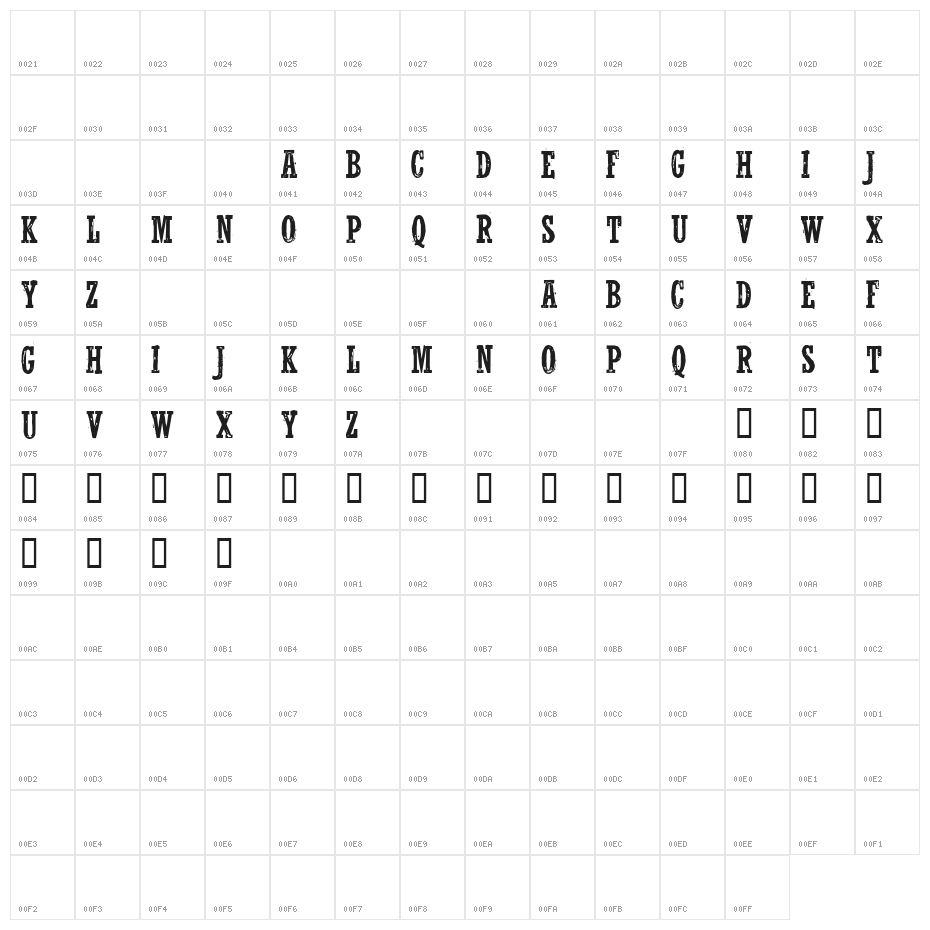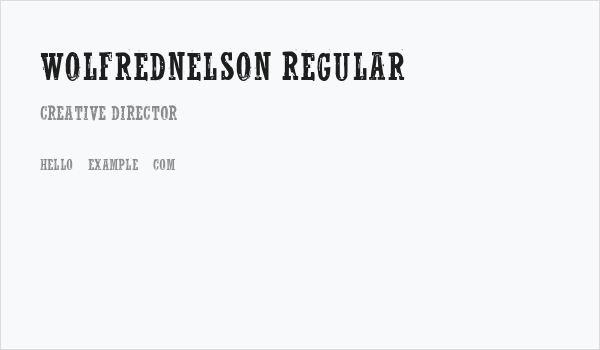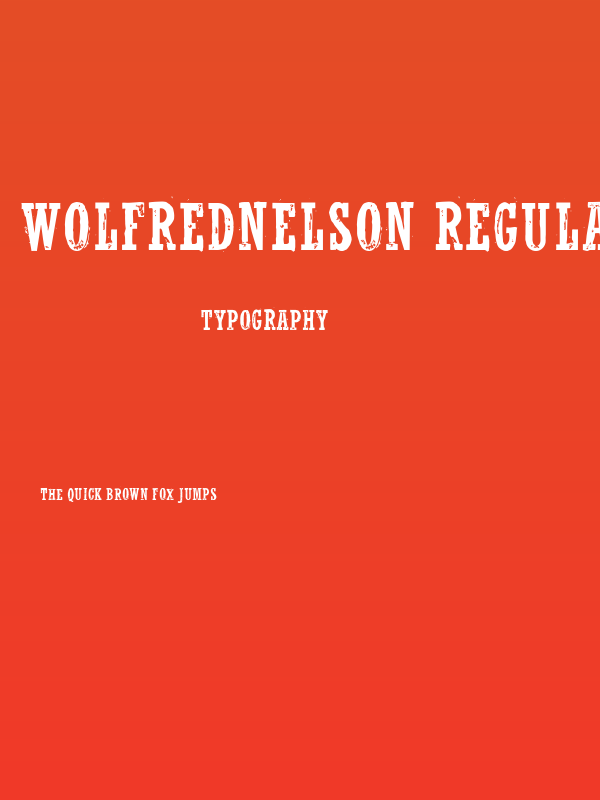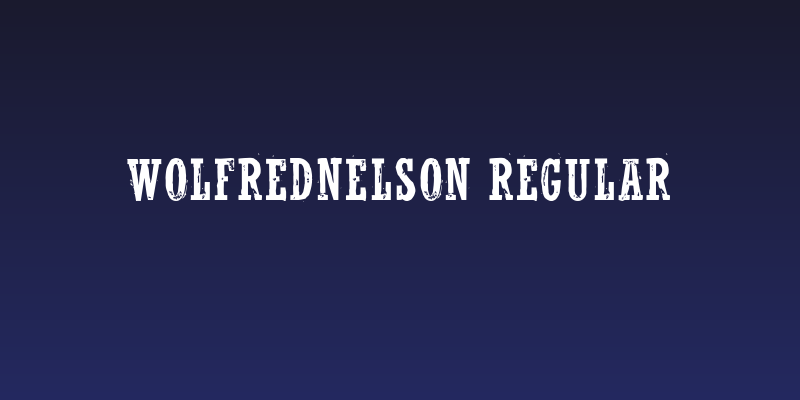
WolfredNelson Regular Font
WolfredNelson Regular Description
This font features a bold, distressed style with a vintage, rugged appearance. The characters are designed with a textured effect that gives them a worn, weathered look, reminiscent of old printing techniques. The uppercase letters are prominent and commanding, making them ideal for attention-grabbing headlines. The font's unique aesthetic is achieved through irregular edges and subtle imperfections, adding character and depth. This style is perfect for projects that require a touch of nostalgia or a handcrafted feel, such as posters, branding, or packaging designs.
| Proposed Projects | Ideal for posters, branding, packaging designs, and any project needing a vintage or handcrafted feel. |